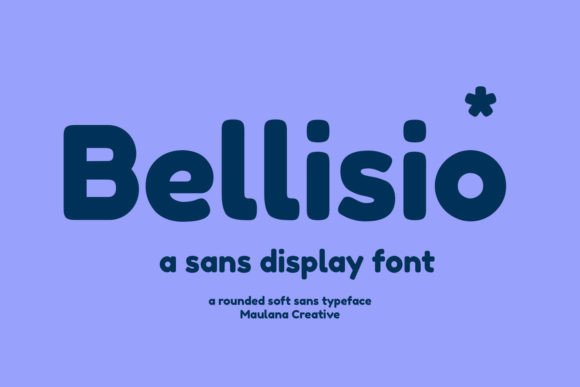
Introducing Belissio Font: The Soft and Elegant Sans Serif for Your Design Needs
In the world of typography, fonts play a crucial role in conveying the tone and personality of a brand, product, or creative project. With thousands of fonts available, finding the perfect one that suits your design needs can be overwhelming. However, if you’re looking for a soft, rounded, and elegant sans serif font, look no further than Belissio Font. In this article, we’ll explore the features, benefits, and uses of Belissio Font, and why it’s an excellent choice for your design projects.
What is Belissio Font?
Belissio Font is a soft rounded edge sans serif font designed to provide a clean and elegant look to your designs. Its smooth and rounded edges give it a friendly and approachable feel, making it perfect for a wide range of applications. Whether you’re working on a logo design, social media graphics, movie and book titles, invitations, business cards, or web design, Belissio Font is an excellent choice.
Key Features of Belissio Font
So, what makes Belissio Font stand out from other fonts? Here are some of its key features:
- Soft and Rounded Edges: Belissio Font features soft and rounded edges that give it a unique and elegant look.
- Sans Serif: As a sans serif font, Belissio Font is clean and modern, making it perfect for designs that require a sleek look.
- Highly Versatile: Belissio Font is highly versatile and can be used for a wide range of applications, from logo design to web design.
- Elegant and Sophisticated: The font’s elegant and sophisticated look makes it perfect for designs that require a touch of luxury and refinement.
Benefits of Using Belissio Font
Using Belissio Font for your design projects comes with several benefits. Here are some of the advantages of using this font:
- Unique and Memorable: Belissio Font’s unique and elegant look makes it perfect for creating memorable designs that stand out from the crowd.
- Improves Readability: The font’s clean and modern design improves readability, making it easy for your audience to read and understand your message.
- Enhances Brand Identity: Belissio Font can help enhance your brand identity by providing a consistent and professional look across all your designs.
- Easy to Pair with Other Fonts: The font’s versatility makes it easy to pair with other fonts, allowing you to create stunning font combinations.
Use Cases for Belissio Font
Belissio Font is an excellent choice for a wide range of design applications. Here are some use cases where this font shines:
- Logo Design: Belissio Font is perfect for creating elegant and memorable logos that represent your brand.
- Social Media Graphics: The font’s clean and modern design makes it ideal for creating social media graphics that grab attention.
- Movie and Book Titles: Belissio Font’s elegant and sophisticated look makes it perfect for movie and book titles that require a touch of luxury.
- Invitations and Business Cards: The font’s soft and rounded edges make it ideal for creating invitations and business cards that require a personal touch.
- Web Design: Belissio Font is perfect for web design projects that require a clean, modern, and elegant look.
Tips for Using Belissio Font
To get the most out of Belissio Font, here are some tips to keep in mind:
- Use it for Headings and Titles: Belissio Font is perfect for headings and titles, where its elegant and sophisticated look can shine.
- Pair it with Other Fonts: Experiment with pairing Belissio Font with other fonts to create stunning font combinations.
- Adjust Font Size and Style: Adjust the font size and style to suit your design needs and ensure optimal readability.
- Use it Consistently: Use Belissio Font consistently across all your designs to create a professional and cohesive look.
In conclusion, Belissio Font is an excellent choice for designers looking for a soft, rounded, and elegant sans serif font. Its versatility, elegance, and sophistication make it perfect for a wide range of design applications, from logo design to web design. By following the tips outlined in this article, you can get the most out of Belissio Font and create stunning designs that leave a lasting impression.